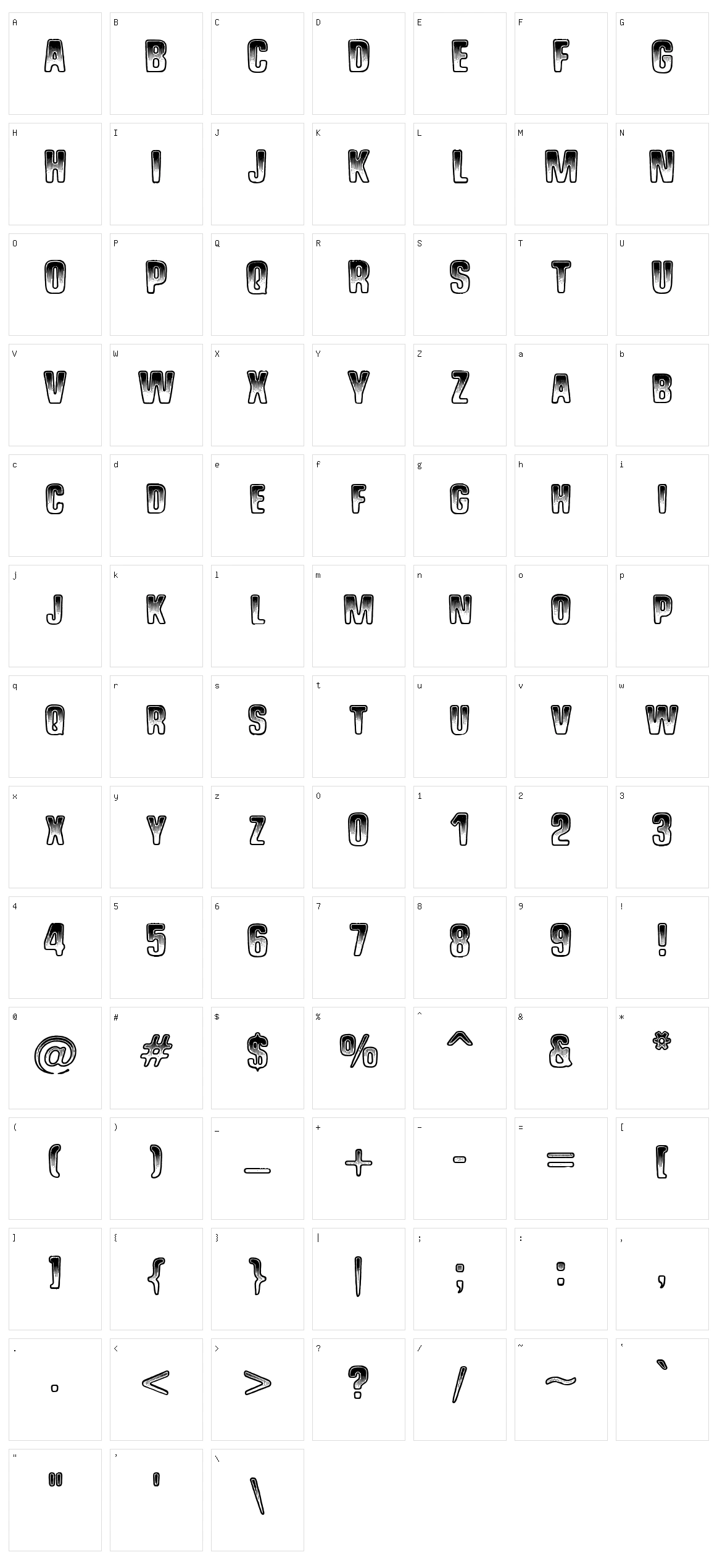
SHOCK SHIMMY
A TrueType Font by S. John Ross
To the extent that the “vaguely wobbly font with vertical lines inside it, fading from either the top or bottom” is a font genre, this is my hat in that particular ring. As usual, I've followed some of the rules and ignored others … the forms are more regular than most, the fading lines a little more “Uresia mapping” and a little less “Monster Mash,” and the whole thing is a bit on the jaunty side.
That part's important. While many of my fonts come from some specific graphic-project need or honor some particular person, this font sprung from a mood, and not a particularly good one. Without getting too deep into the details, there was some trouble recently between Friend A and Friend B. A hurt B (and in the process, hurt a lot of the rest of us) and for a time it was necessary that I focus on the needs of Friend B without indulging too deeply in how I now felt about Friend A. Last night I finally started indulging, and tallying what I've personally lost to to the harmful act of Friend A (Acquaintance A, right now).
The thing is, being grouchy put me in a mood where I needed to make something that wasn't grouchy at all. I needed something playful, something punchy, something bold and bright and upbeat. This font is all that, which just goes to show that a grouchy energy can be reflected back into something positive. While I'm not sure what you'd license this font for (a halloween party for fifth-graders? A particularly lighthearted bar-band poster?), I hope it gives you a grin either way. It did the trick for me, and kept me company on a night when I needed some. And for my next trick, I'll be finishing a big font project to honor and celebrate Friend B properly (I've been working on it for months, it's just finally coming together). SHOCK SHIMMY is a full-keyboard small-caps set with some of the usual extras. Enjoy!